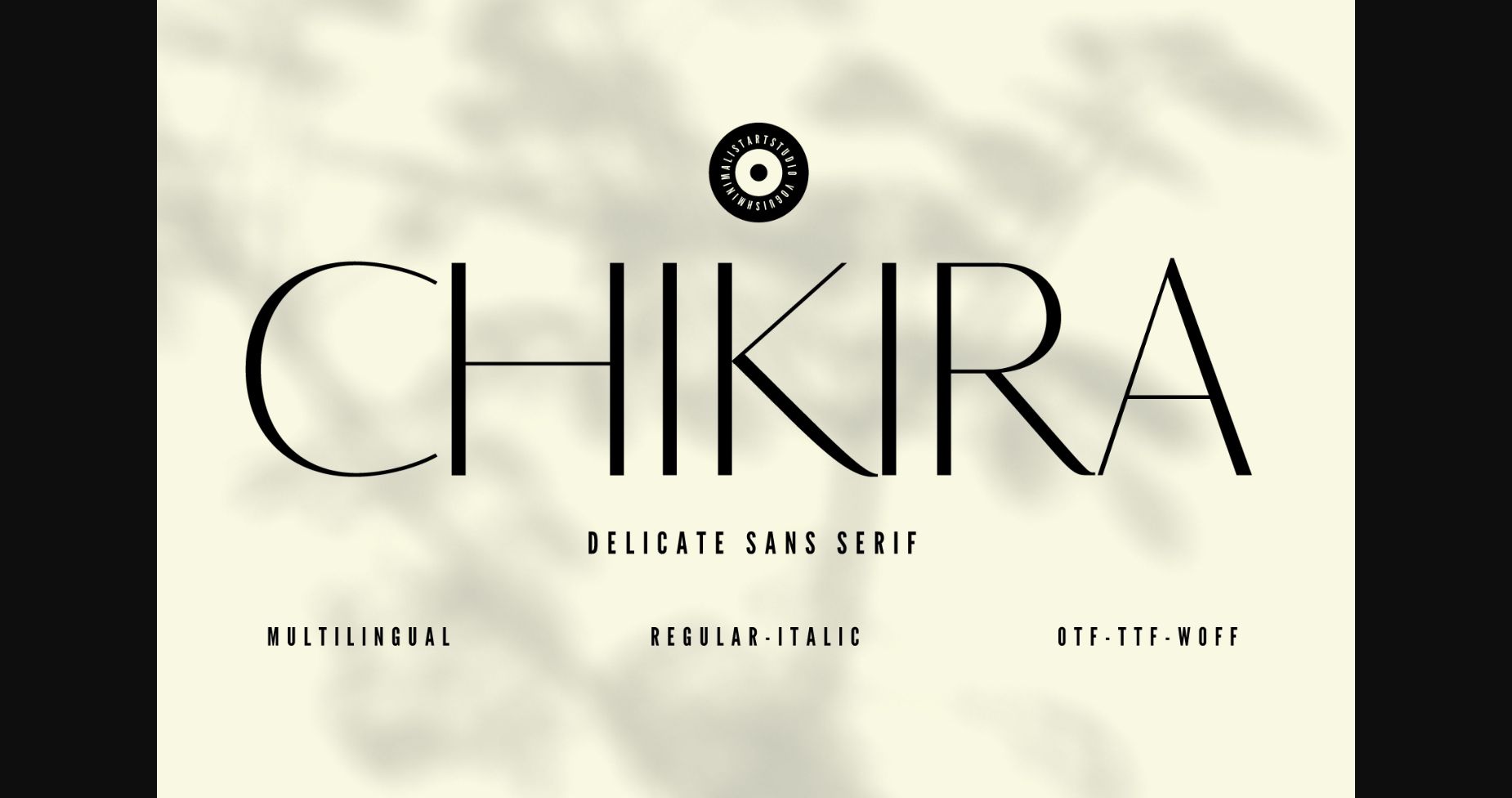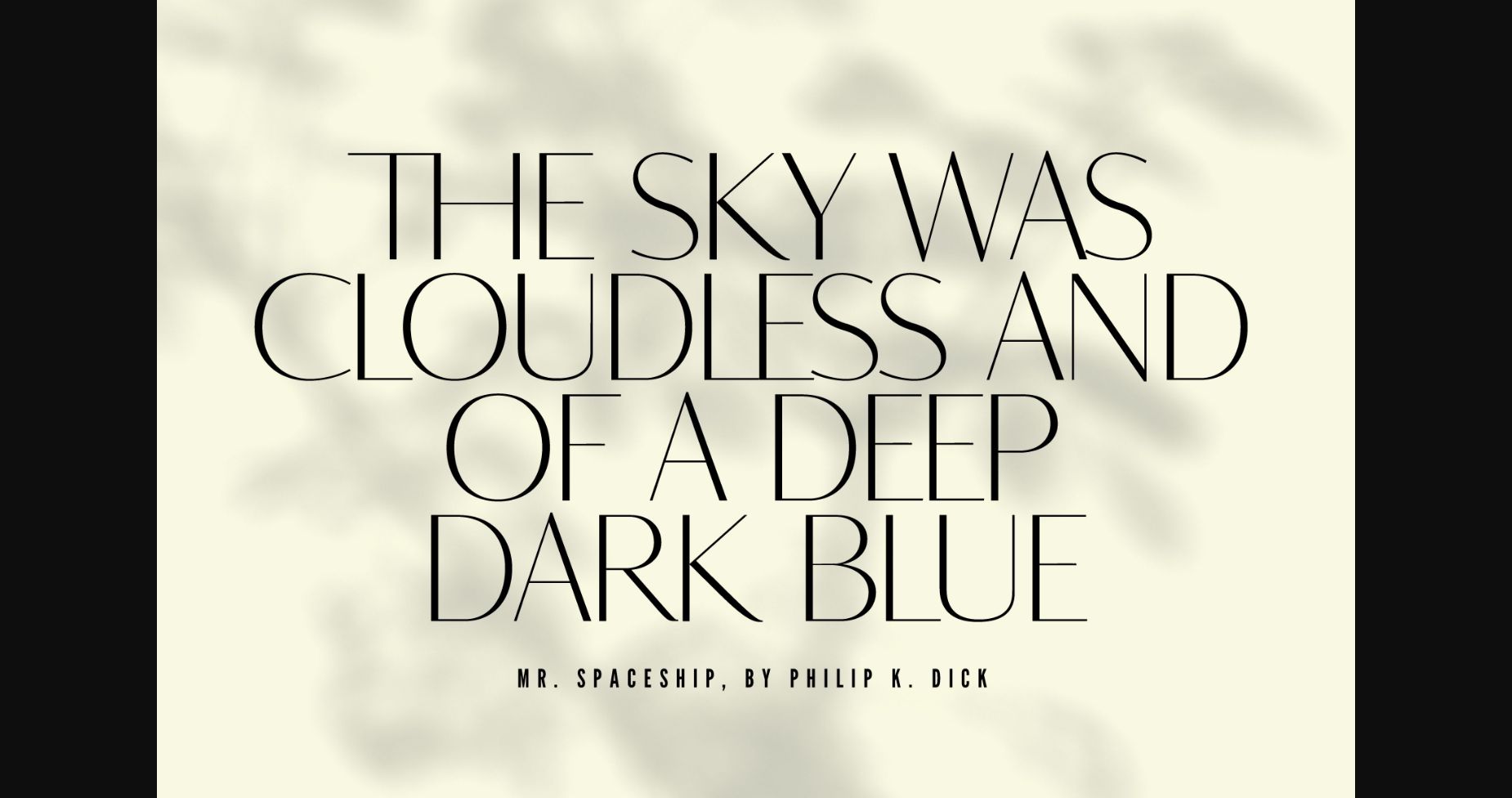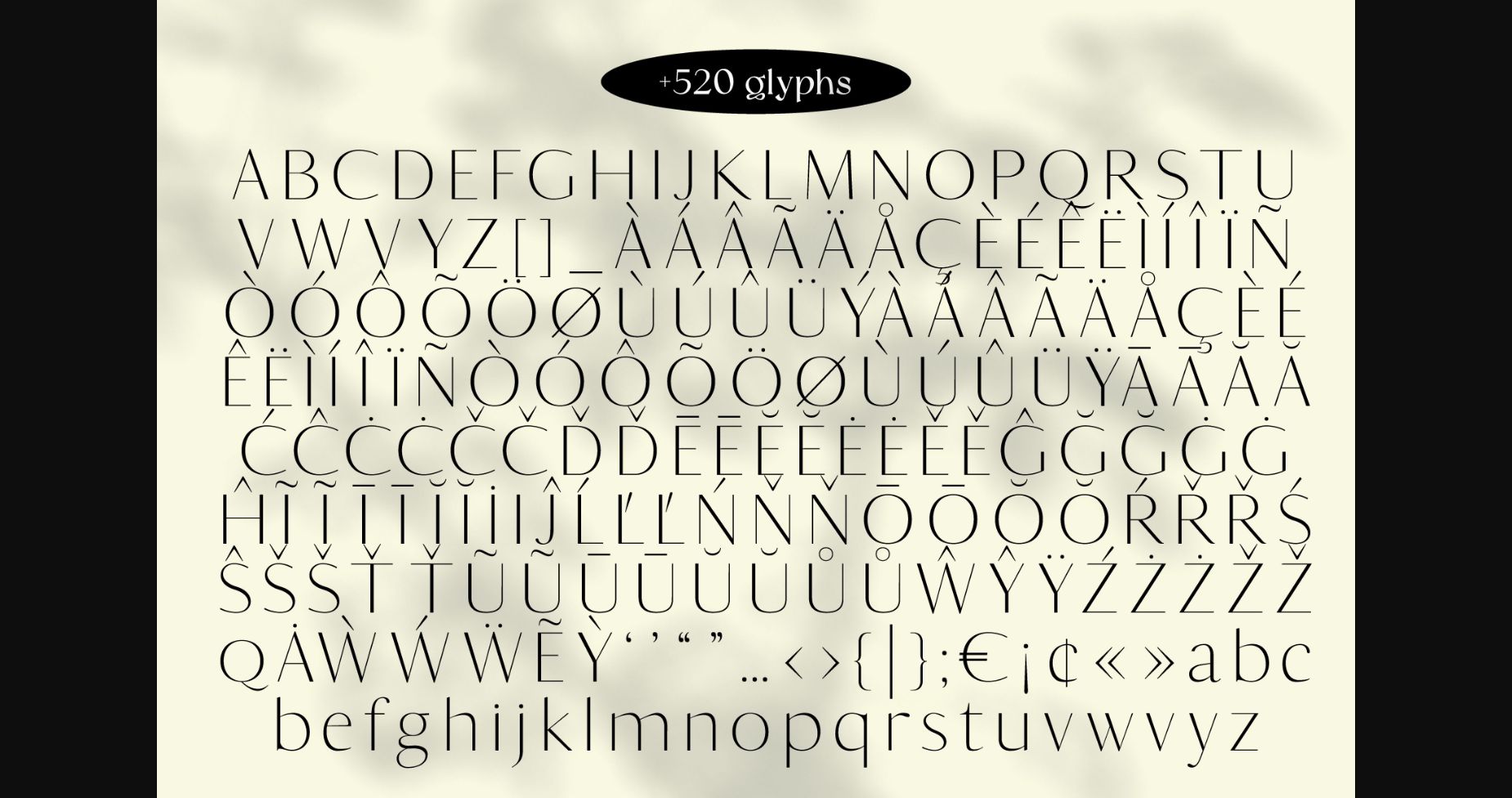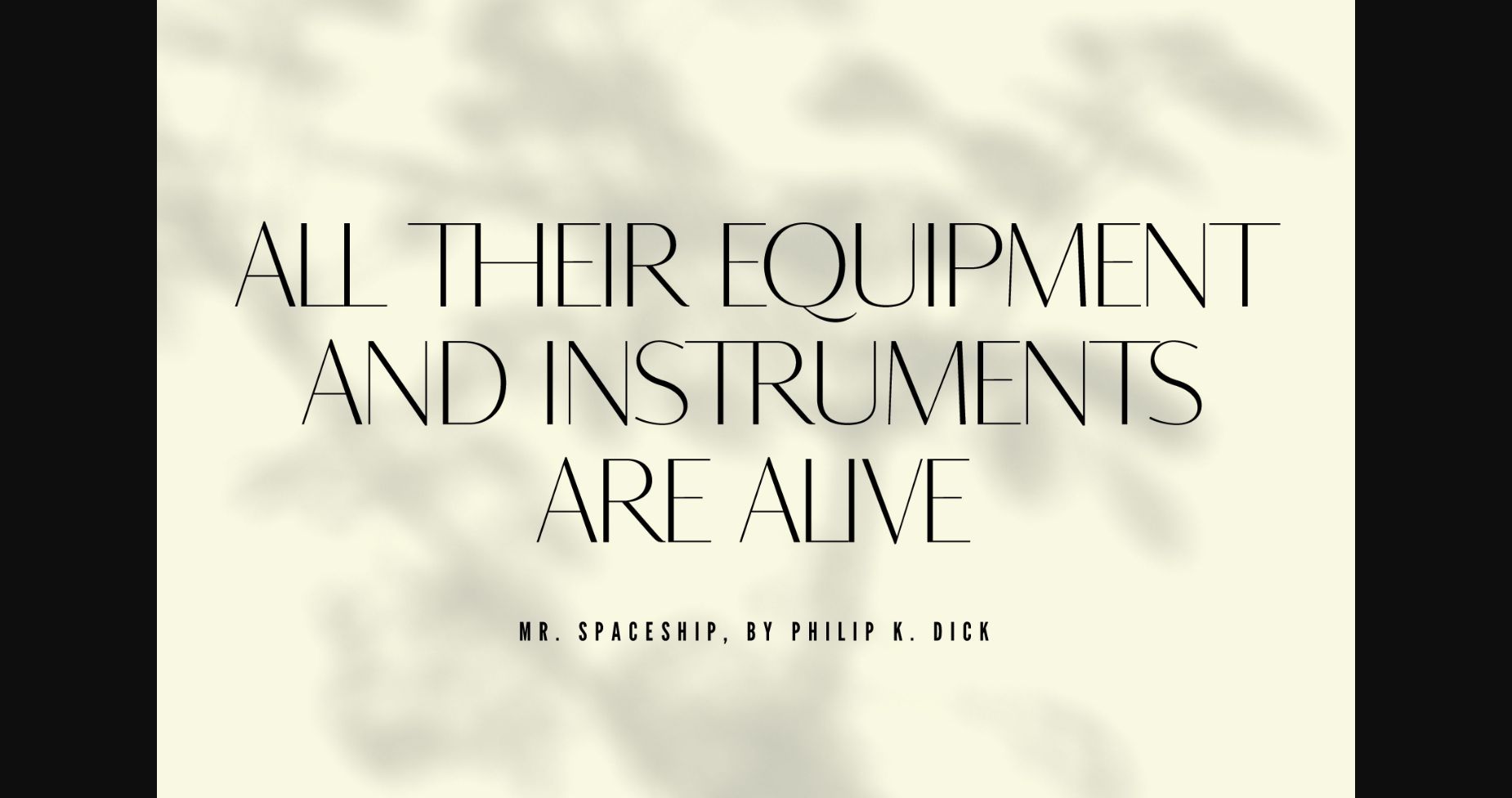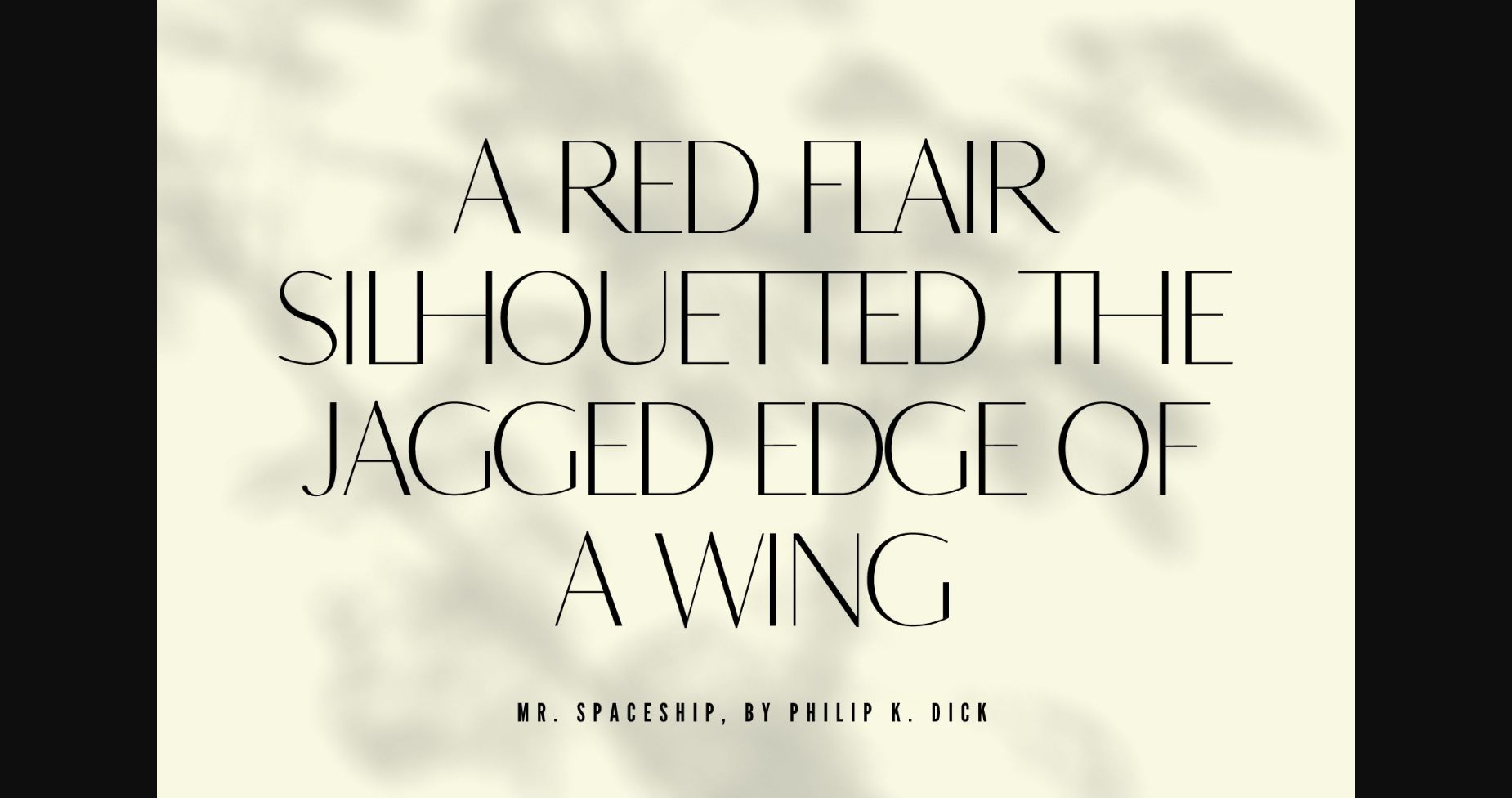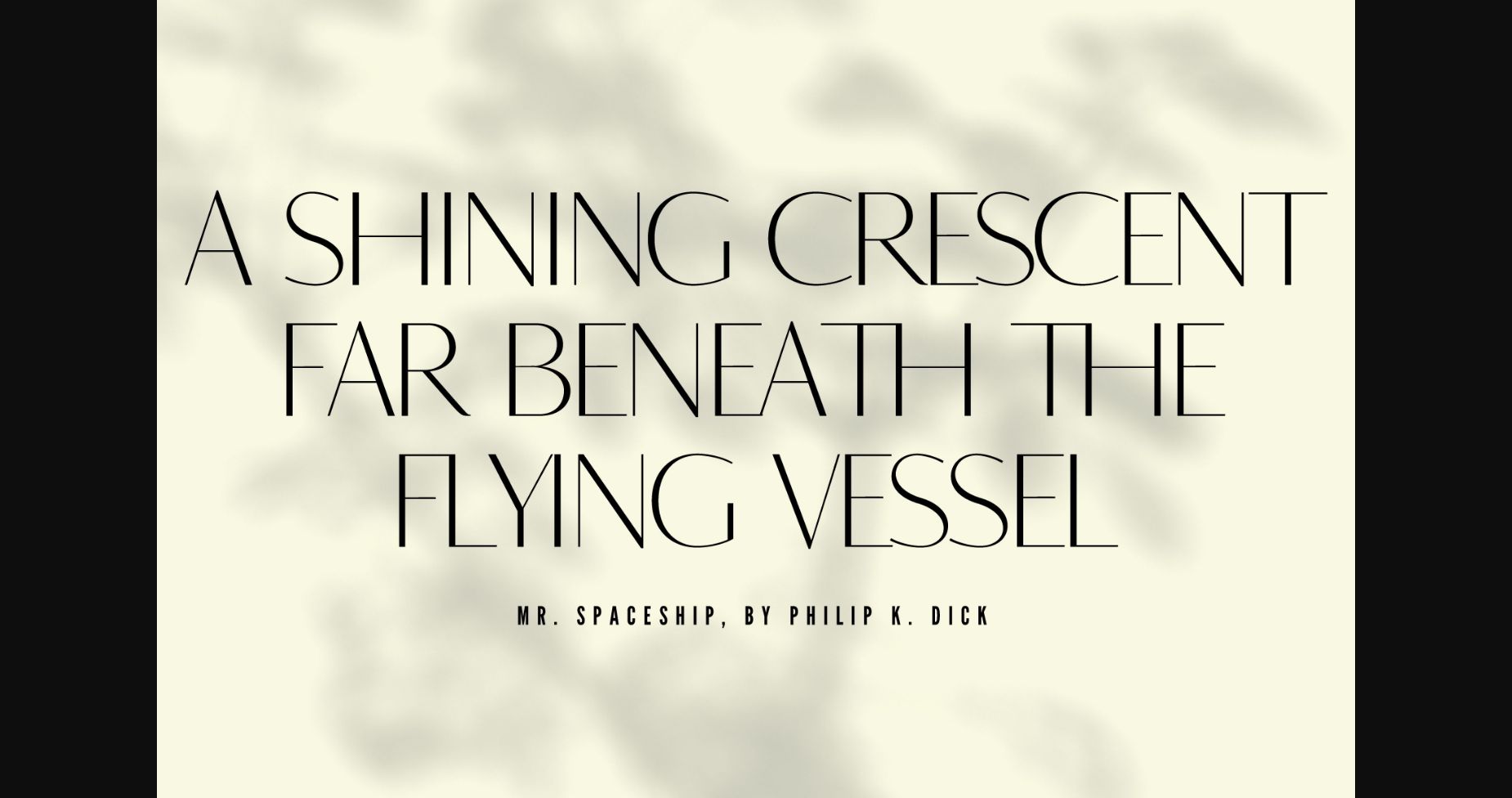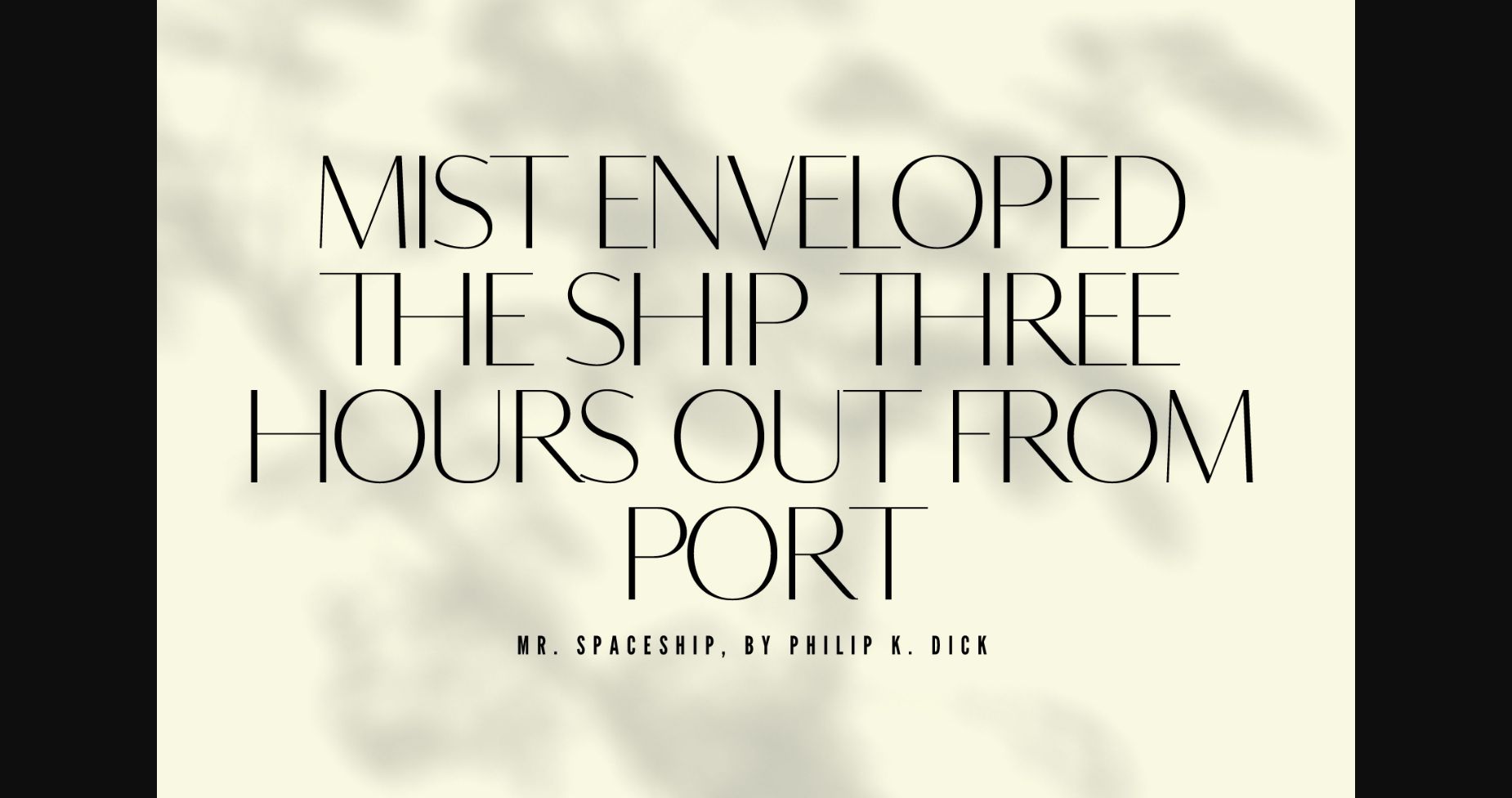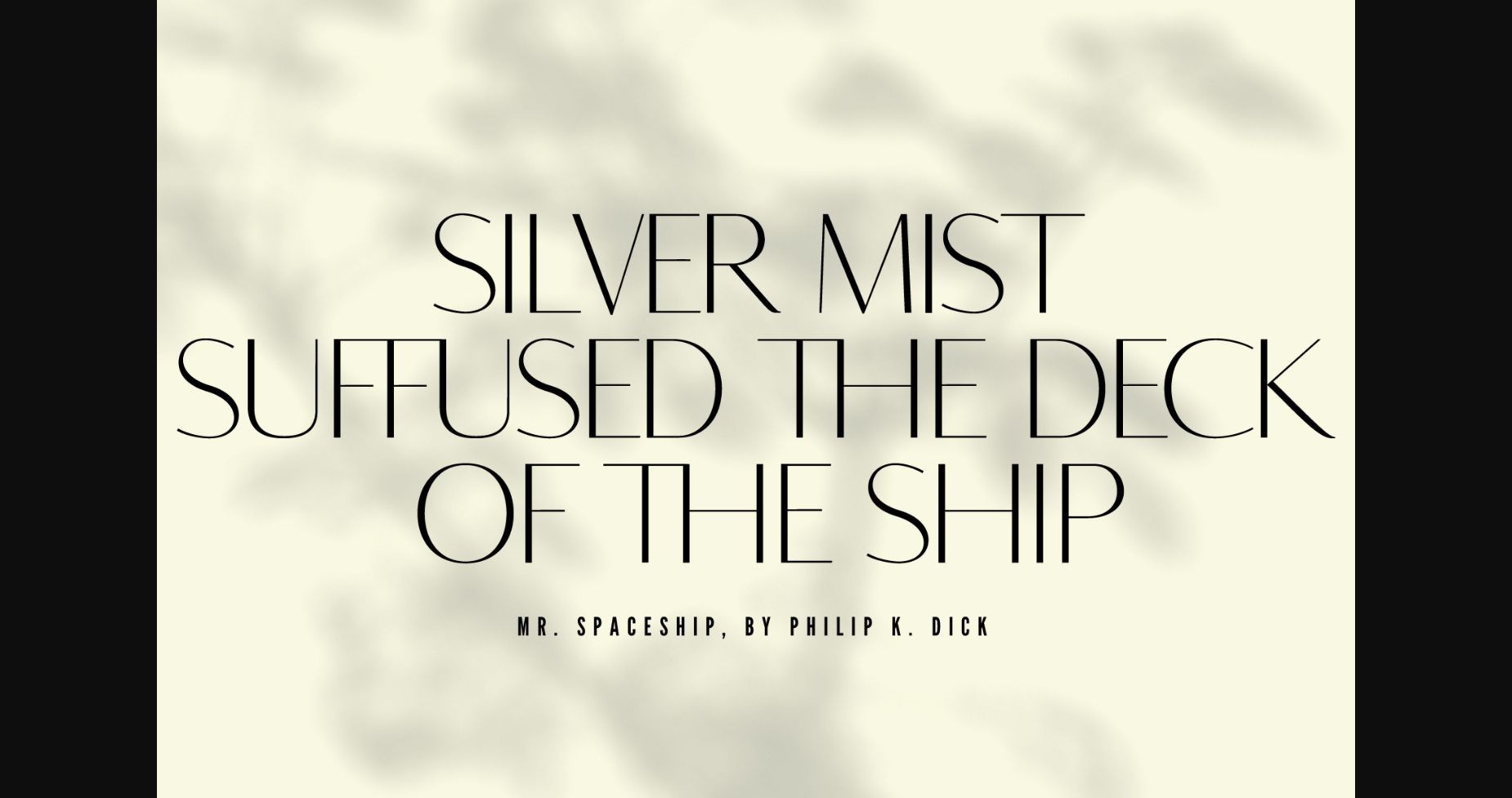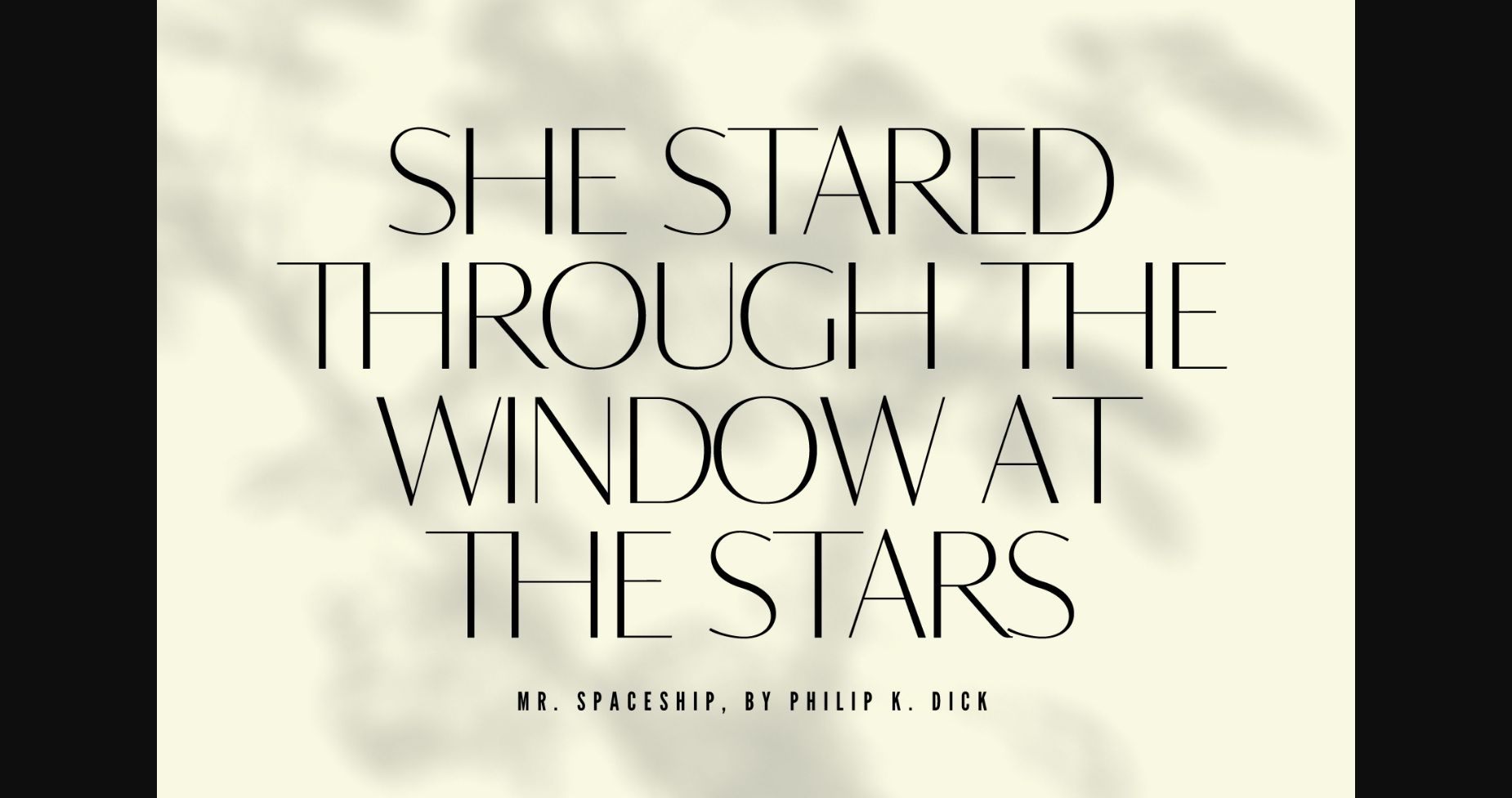
Chikira Font
About Chikira Font
Introducing CHIKIRA, the epitome of elegance and sophistication in typography. CHIKIRA can elevate any project with its delicate, yet strong curves and timeless appeal. Perfect for invitations, branding, editorial design, and more, CHIKIRA is the ultimate choice for those seeking a font that exudes refined style and class. Try CHIKIRA today and see the difference for yourself.